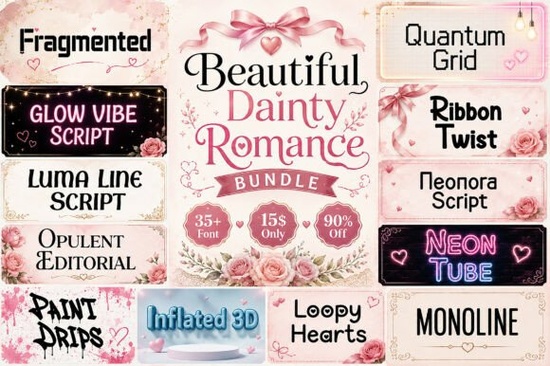
If you're looking for a soft, elegant, and versatile font collection that works as well on a hand-lettered wedding invitation as it does on a modern t-shirt design or Cricut vinyl project, the Beautiful Dainty Romance Font bundle is worth your time. It’s not just one font it’s 35+ carefully selected typefaces, each with its own personality: delicate scripts, clean monoline styles, subtle neon accents, playful graffiti-inspired lettering, and crisp display fonts ideal for logos or book covers.
What kind of projects does this bundle actually work for?
This isn’t a “pretty but impractical” set. Designers and crafters consistently use these fonts for real-world applications like creating printable greeting cards, designing Shopify store banners, cutting vinyl for small-batch apparel, or building cohesive brand assets for a new Etsy shop. Because it includes editorial fonts alongside decorative and script options, you can pair them thoughtfully: a flowing script for a headline, a neutral sans-serif or serif for body text, and a subtle pixel or neon style for a fun accent.
For example, if you’re making custom stickers for a bridal boutique, you might combine a dainty script from the bundle with a clean, readable display font like one of the included display options. Or if you're designing social media posts for a wellness brand, a light monoline font could balance beautifully with a soft watercolor texture no extra font license needed.
How does it compare to other popular bundles?
Unlike some all-in-one font packs that lean heavily into one trend (like ultra-thin scripts or bold retro styles), this collection balances variety with cohesion. You’ll find fonts that feel current without being dated in six months think timeless romance, not fleeting fads. That makes it especially useful for print-on-demand sellers who need reliable, evergreen assets across mugs, notebooks, and tote bags.
It shares thoughtful curation with sets like the Limited Edition Font bundle, which also prioritizes usability over novelty. But where that set leans more toward vintage charm, Beautiful Dainty Romance focuses on delicacy, airiness, and gentle contrast perfect for brands centered around self-care, weddings, or slow-living aesthetics.
Which fonts stand out for specific uses?
A few favorites from the bundle include:
- Sealgair a graceful, slightly bouncy script ideal for invitations or handwritten-style quotes. You can preview its flow and spacing in the Sealgair display fonts page.
- Enjoy a relaxed, friendly monoline script that reads clearly at smaller sizes, great for labels or packaging details. See how it performs in different weights on the Enjoy display fonts page.
- Veltcon a modern, geometric display font with subtle romantic curves. Works well for logos or headlines where you want clarity plus character. Check its full range on the Veltcon display fonts page.
Where else can I see these fonts in action?